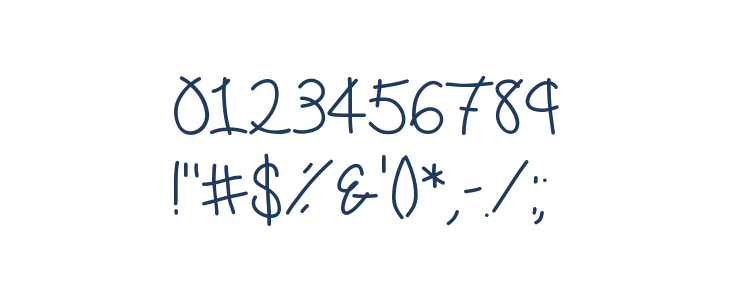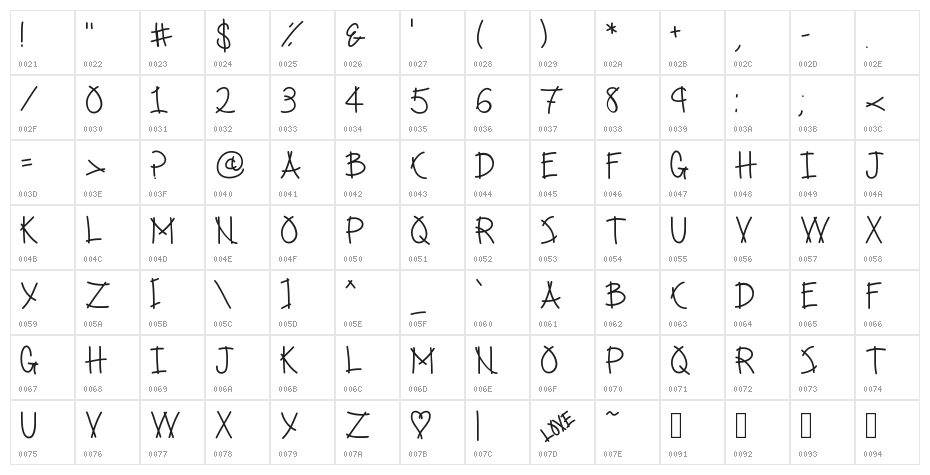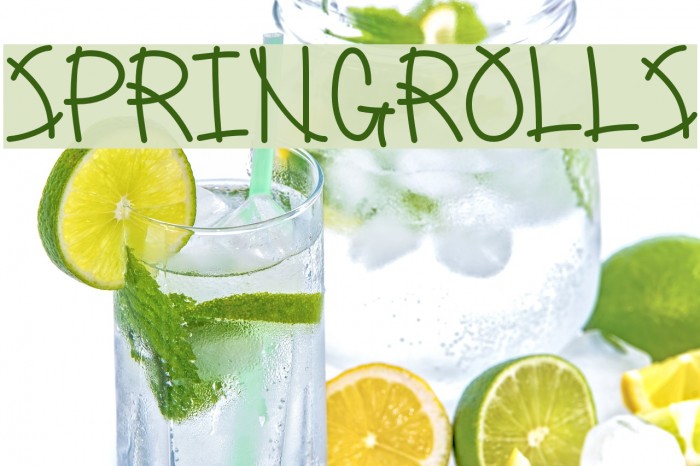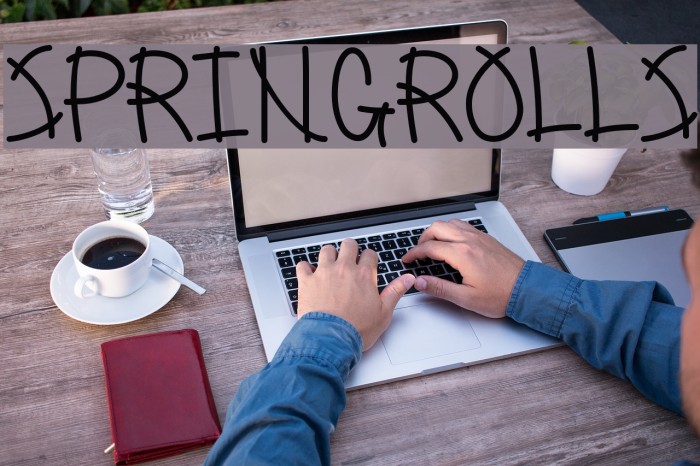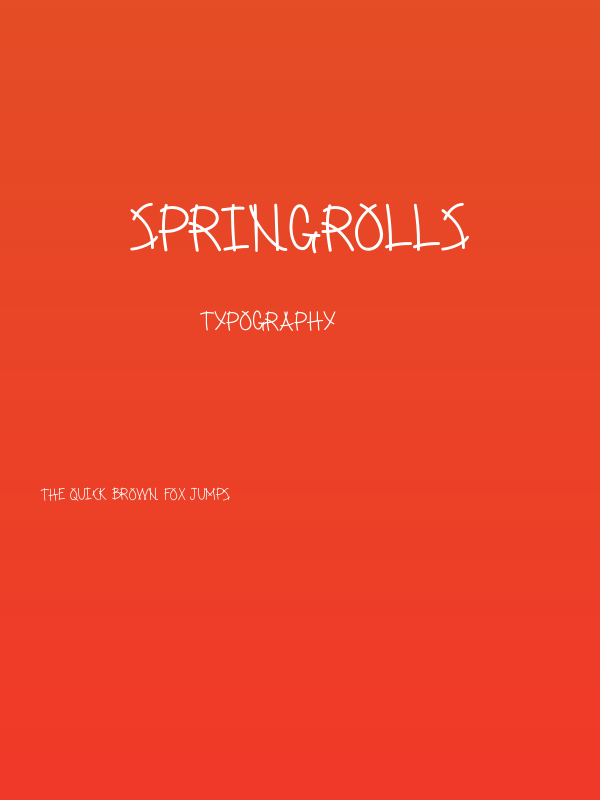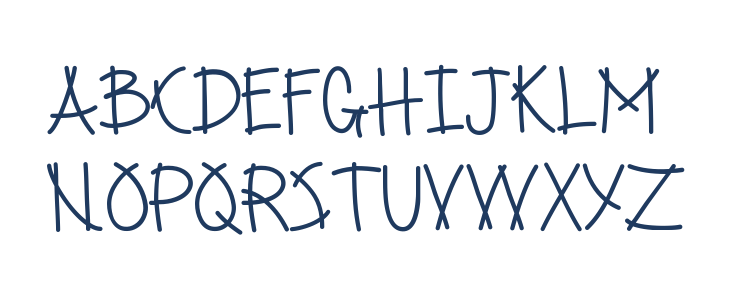
SpringRolls Font
SpringRolls Description
This playful and energetic font features a handwritten style with a casual and informal appearance. The characters are slightly irregular, giving them a lively and dynamic feel. The strokes are consistent in width, providing a uniform look across all letters and numbers. The font's quirky nature is emphasized by its unique character shapes, such as the looped 'R' and the distinctive 'Q'. It includes a full set of uppercase and lowercase letters, numerals, and a variety of special characters, making it versatile for different uses.
| Overall Style | Casual |
| Use Case | Headlines, Posters, Invitations |
| Proposed Projects | Ideal for children's books, playful branding, casual invitations, and creative posters. |